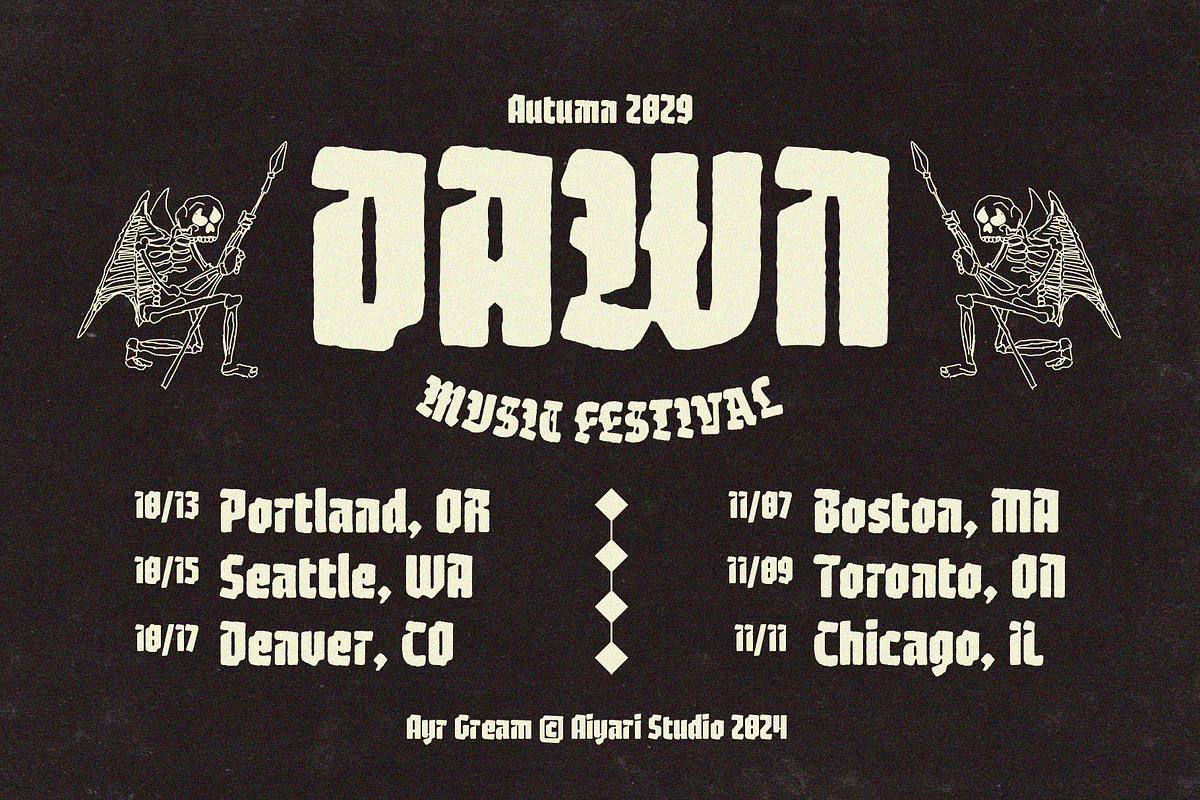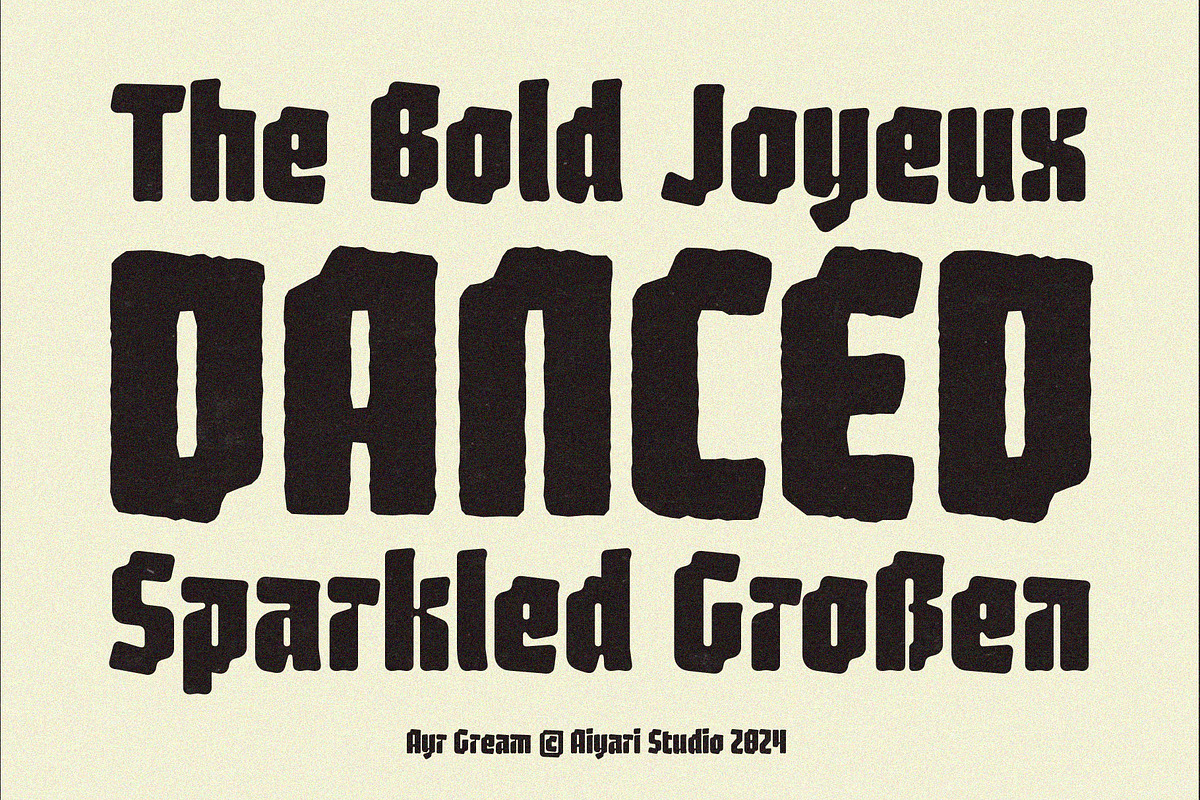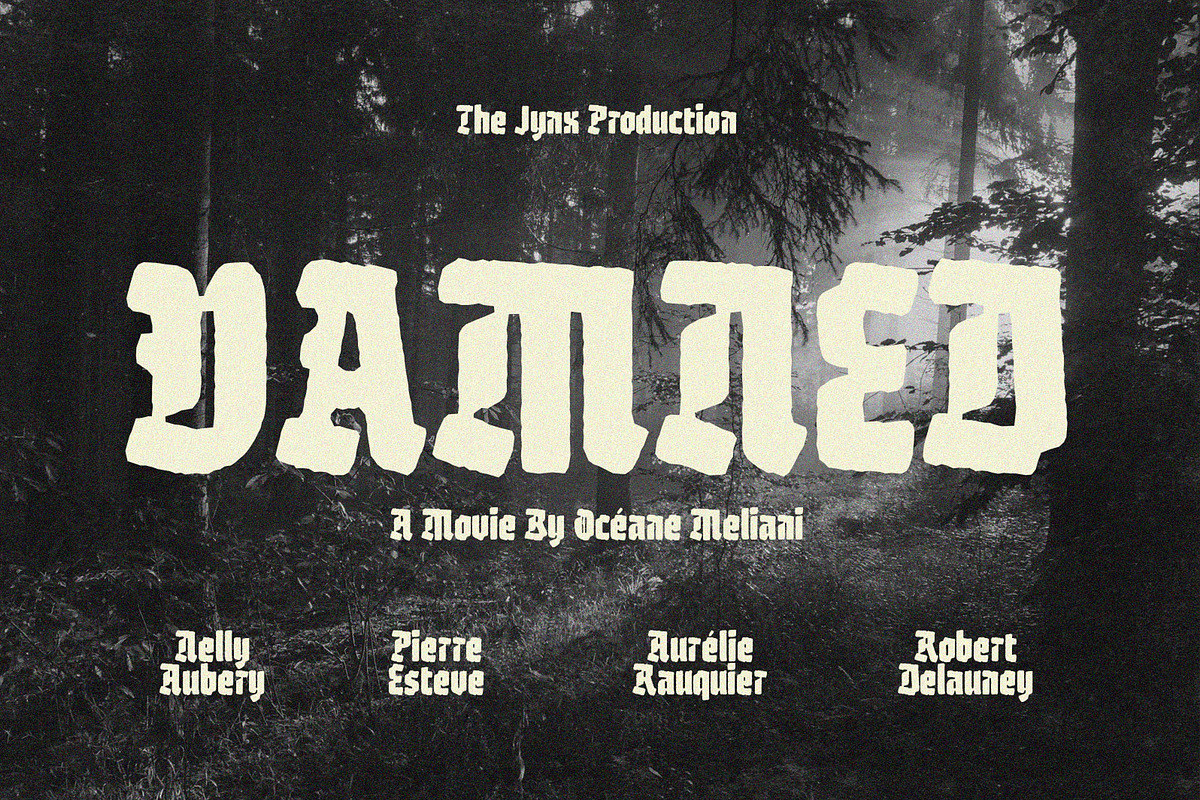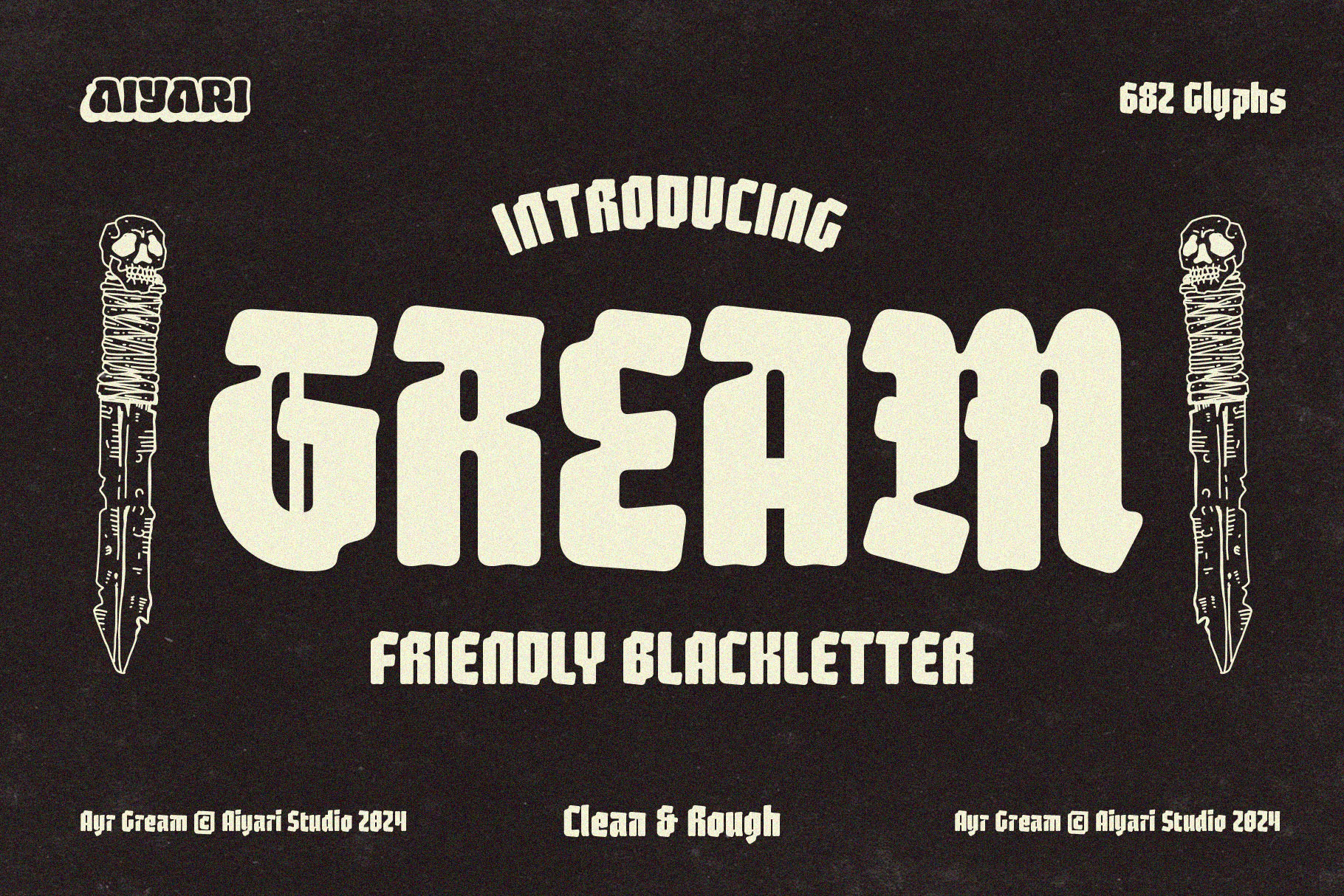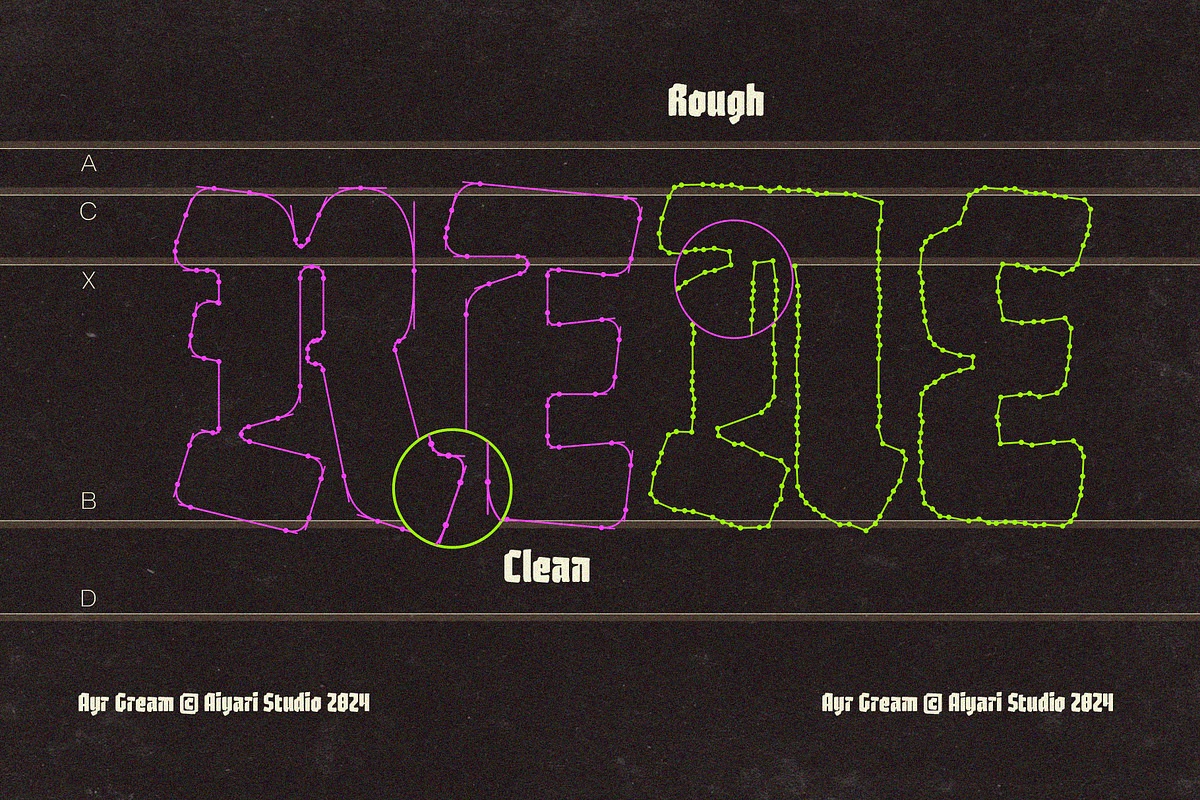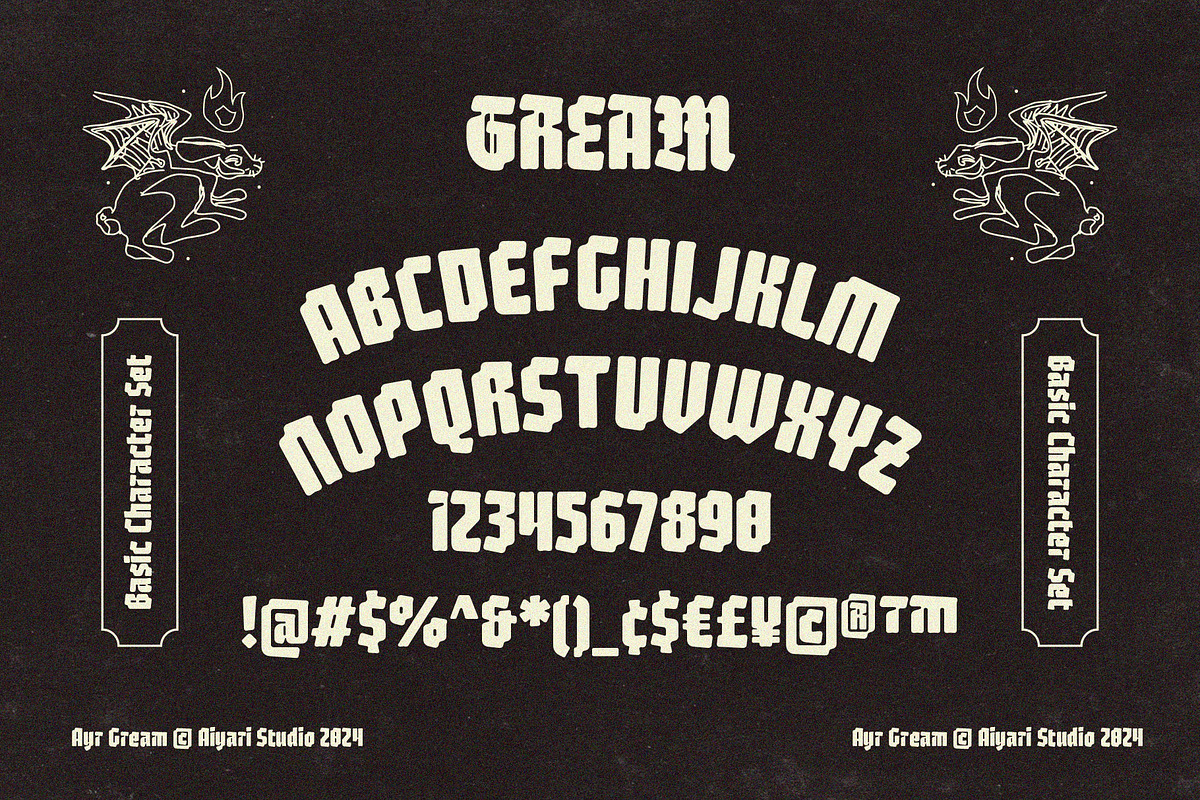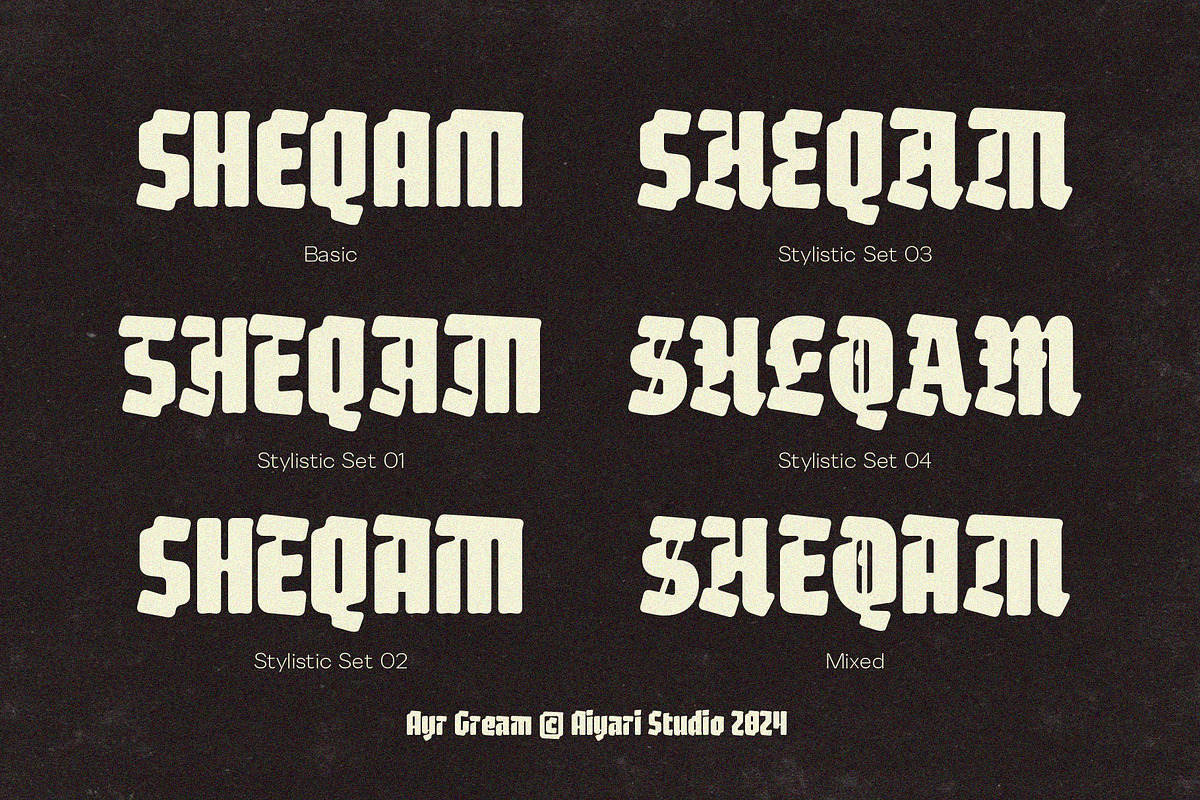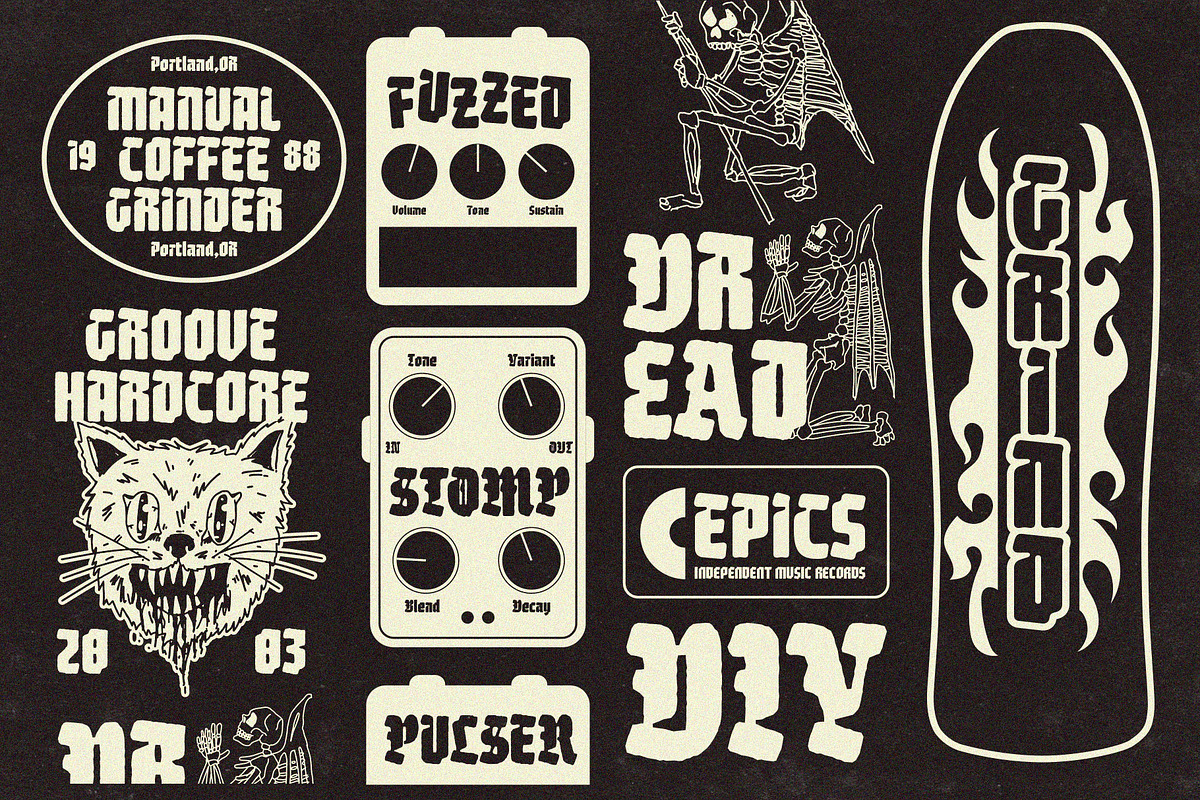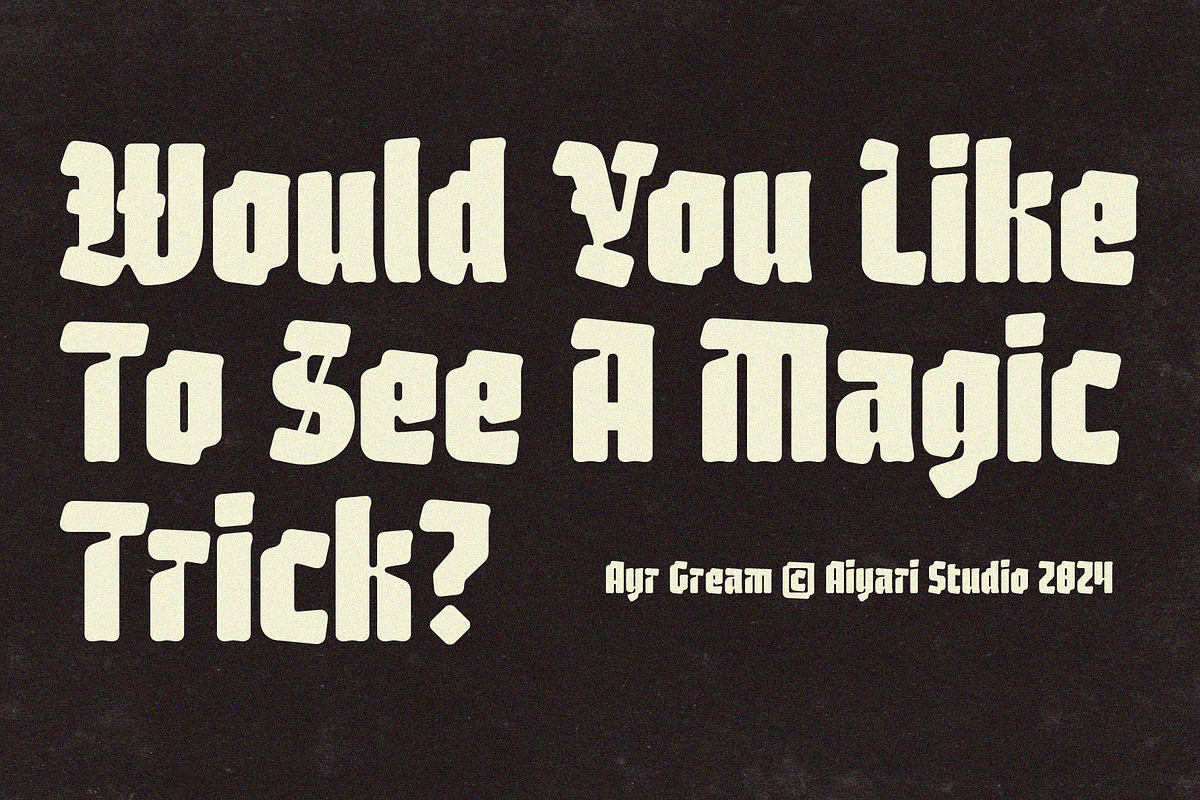
Gream Font Family
Introducing Gream, a typeface that combines modernism with the playful curves of round shapes. By blending sharp, angular edges with soft, rounded forms, Gream redefines Blackletter in a fresh and contemporary way.
Gream best uses for headings, invitation, Logo type, quotes, apparel design, flyer, poster, greeting cards, product packaging, book cover, printed quotes, cover album, movie, etc